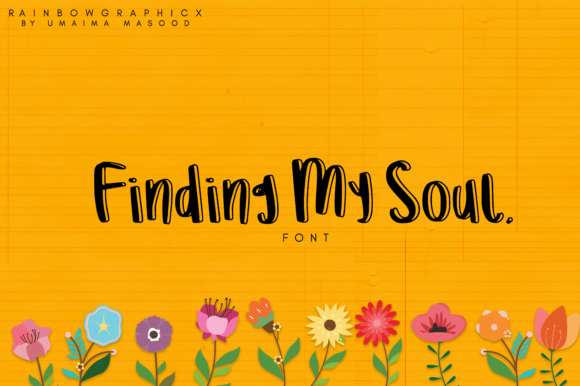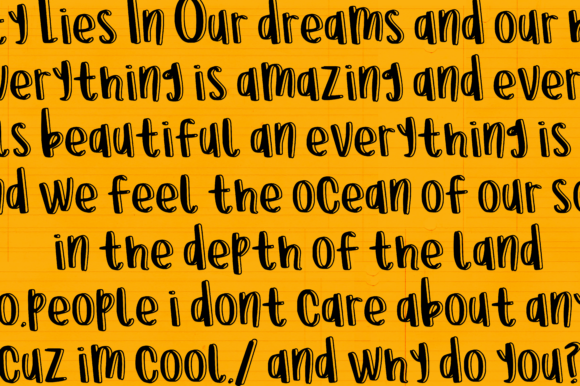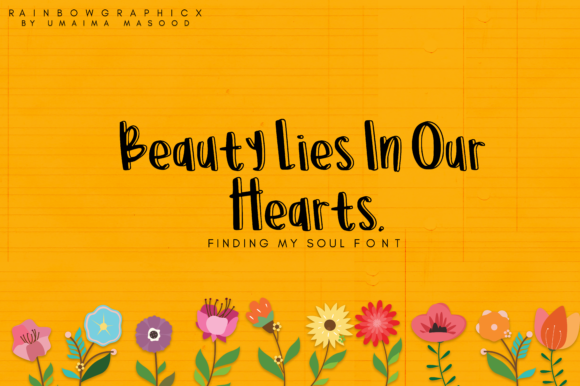
HomeScript FontsFinding My Soul Font Script Fonts Finding My Soul Font FacebookXPinterestWhatsApp Finding My Soul Font Poster 2 Finding My Soul Font Poster 3 About Finding My Soul Font Finding My Soul is a peaceful and calm script with an authentic vibe. Get inspired by its unique charm! DOWNLOAD NOW People also explored Vallerya Font Shining on Font Euphoria Font Winter Hunt Font Babylon Font Chocolate Font Brave Strong Font Abstract Font Advantage 361 0 TagsFinding My Soul Font Previous articleFresh Mood FontNext articleMonday Font LEAVE A REPLY Cancel reply Comment: Please enter your comment! Name:* Please enter your name here Email:* You have entered an incorrect email address! Please enter your email address here Website: Save my name, email, and website in this browser for the next time I comment. Personal Use Free Autines Personal Use Free Read more about this font Folgore Personal Use Free Read more about this font The Winter Personal Use Free Read more about this font BD Geminis Personal Use Free Read more about this font BLOG Top 7 Google Fonts Alternatives for Faster and Privacy-Friendly Web Design (2025) Top 7 Google Fonts Alternatives for Faster and Privacy-Friendly Web Design (2025) When it comes to web typography, Google Fonts has long been the go-to... How to Install and Use Fonts on Windows, macOS, and Web Projects Fonts That Capture the Spirit of New York City Elegant Wedding Invitation Fonts – Handwritten & Script Fonts